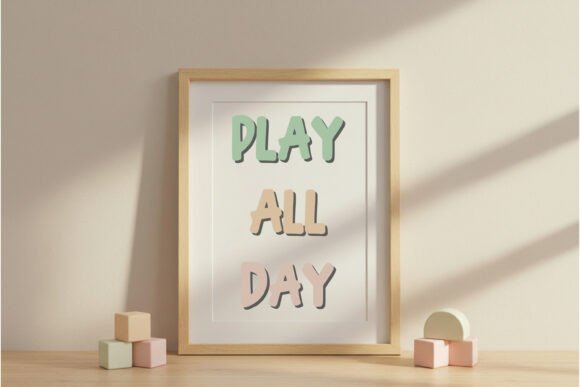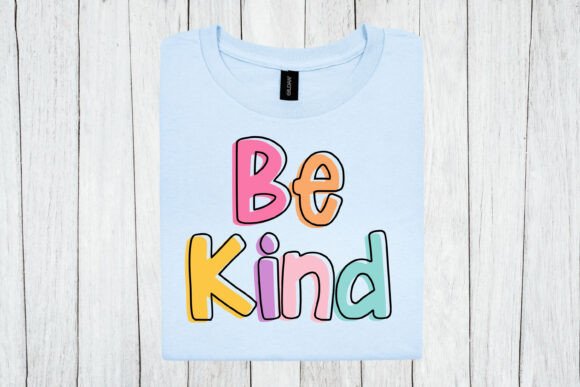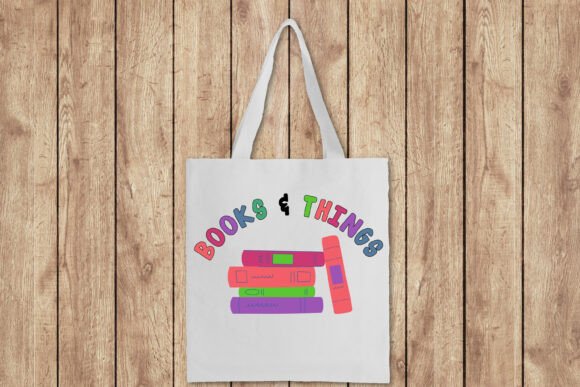
Introduction to Doodle Bounce Font
The Doodle Bounce font is a delightful, chunky display typeface that perfectly captures the carefree energy of a hand-drawn masterpiece.
This whimsical Doodle Bounce typeface features soft, rounded โbubbleโ characters with a rhythmic, jumping baseline that gives your text a sense of constant motion and joy Designed specifically for high-engagement childrenโs media, the Doodle Bounce font is the ultimate choice for nursery wall art, interactive educational apps, and vibrant toy packaging.
Key Features of Doodle Bounce Font
Why Choose Doodle Bounce Font?